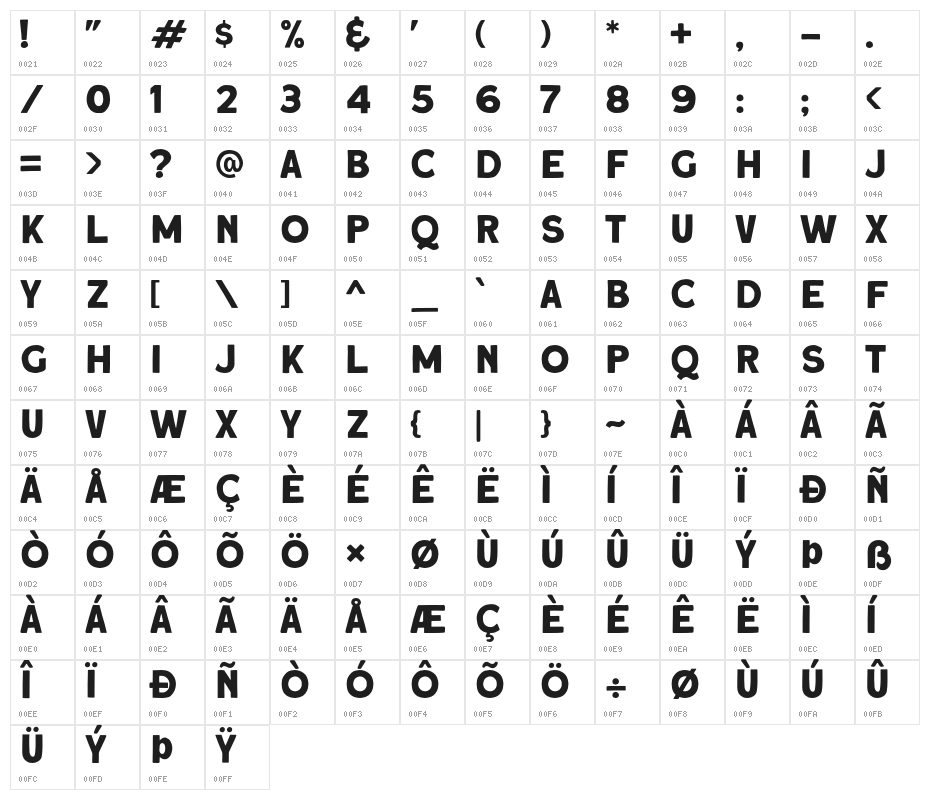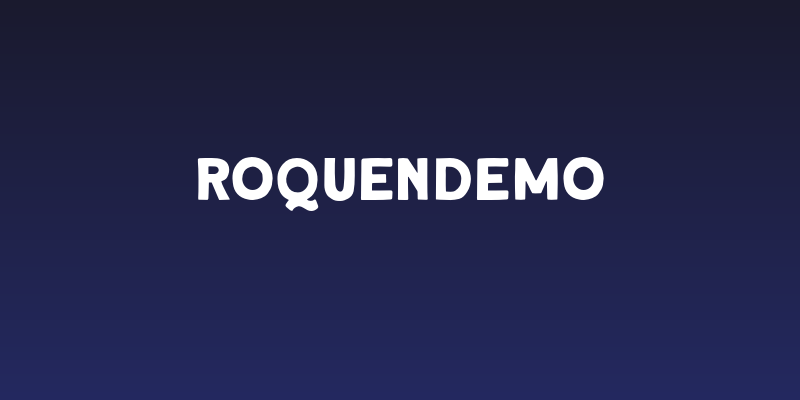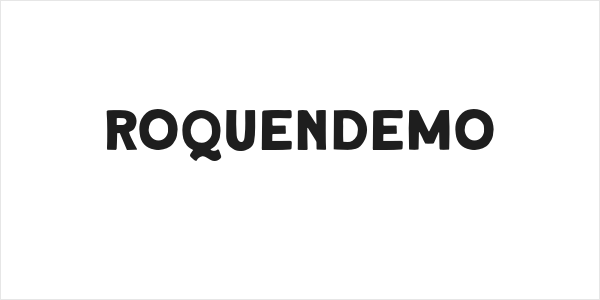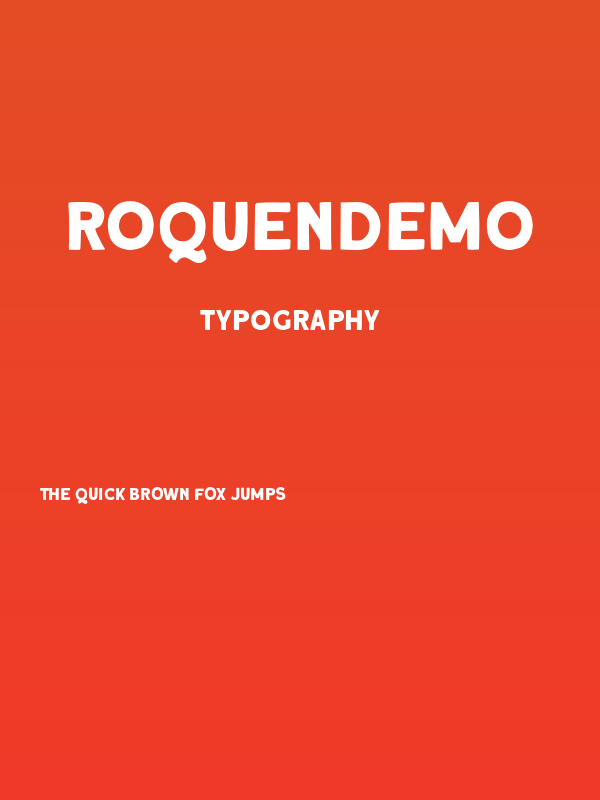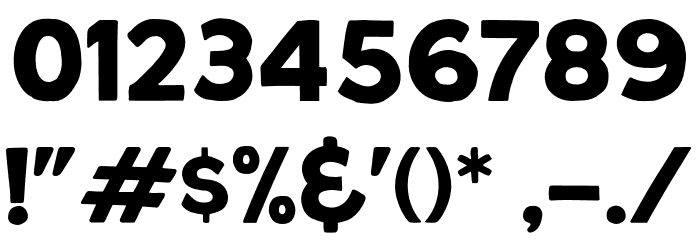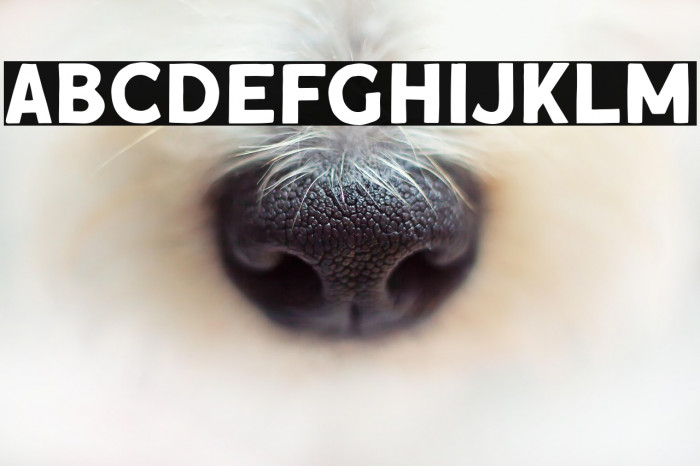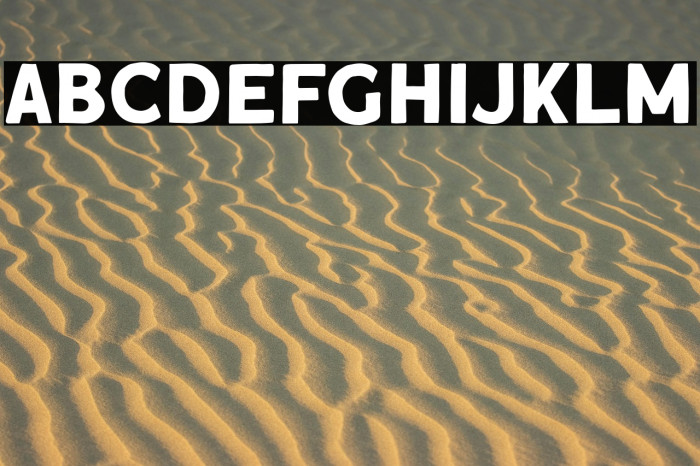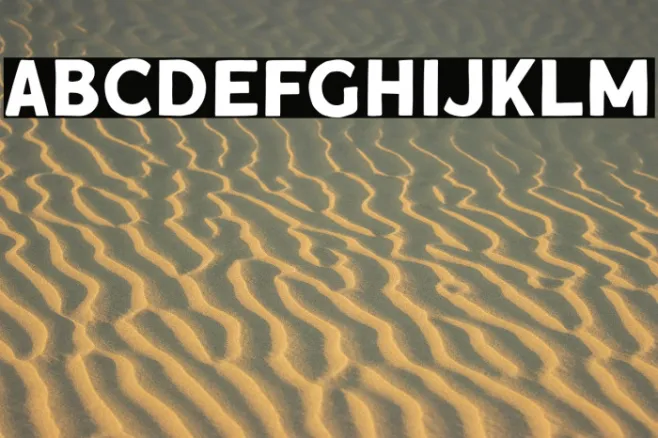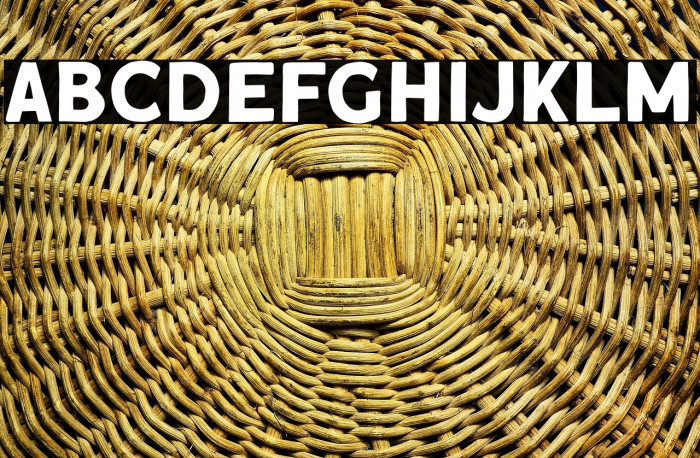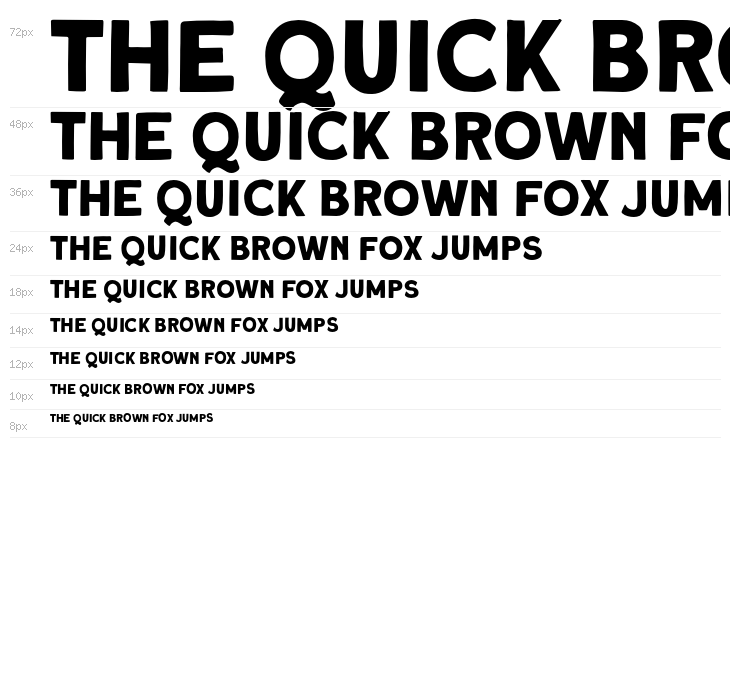
RoquenDEMO Font
RoquenDEMO Description
This bold and impactful font features strong, uniform strokes with a modern and assertive appearance. The characters are well-defined with a consistent weight, making them highly legible and suitable for attention-grabbing designs. The uppercase and lowercase letters maintain a cohesive style, while the numerals and special characters complement the overall aesthetic. The font's geometric structure and clean lines give it a contemporary feel, ideal for projects that require a bold statement.
| Proposed Projects | Ideal for headlines, posters, branding, and advertising where a strong visual impact is needed. |